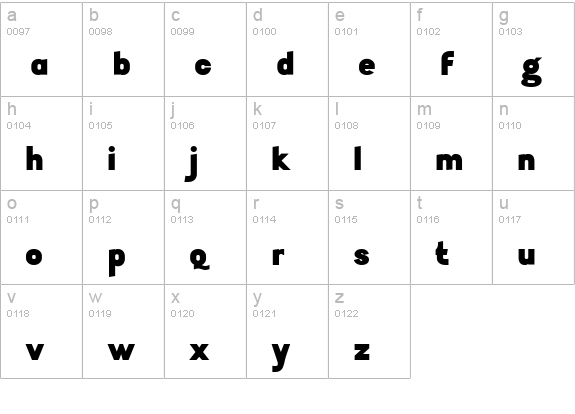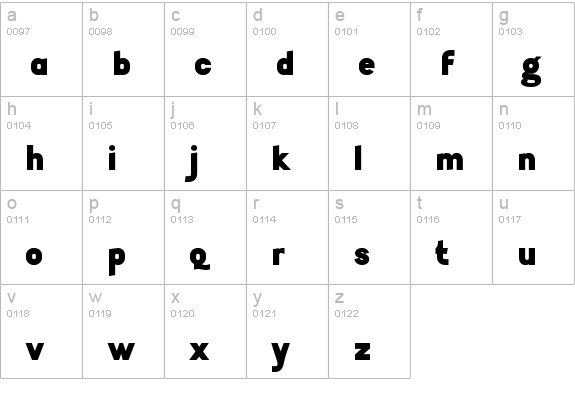
TenkoFett Font Details
TenkoFett font is a bold and dynamic typeface that exudes strength and power. Its strong and angular letterforms make a bold statement, perfect for grabbing attention and making a lasting impression. Designed with precision and attention to detail, TenkoFett font is a versatile font that can be used in a variety of design projects. This font is not only visually compelling but also possesses a sense of elegance and sophistication. Its clean lines and well-defined shapes give it a modern and contemporary feel. Whether used for headlines, logos, posters, or any other design element, TenkoFett font will instantly elevate your project to new heights. And the best part? TenkoFett font is available for free download at FontsMarket.com. You can easily access this font and start using it in your projects without any hassle. With just a few clicks, you can have the power of TenkoFett font at your fingertips, ready to enhance your designs and captivate your audience. So why wait? Download TenkoFett font today and unleash its boldness and versatility in your design projects. With its striking appearance and the fact that it is freely available, TenkoFett font is a must-have for any designer or creative professional looking to make a strong impact. Get ready to make a statement and leave a lasting impression with TenkoFett font.